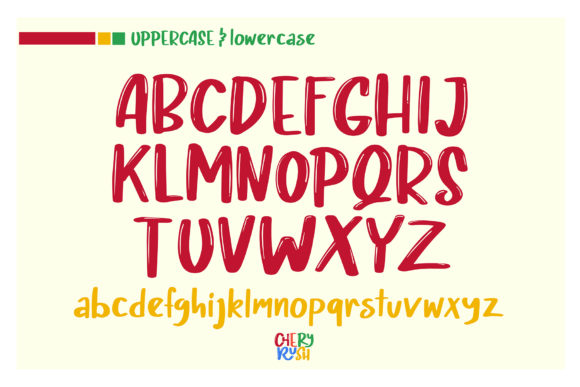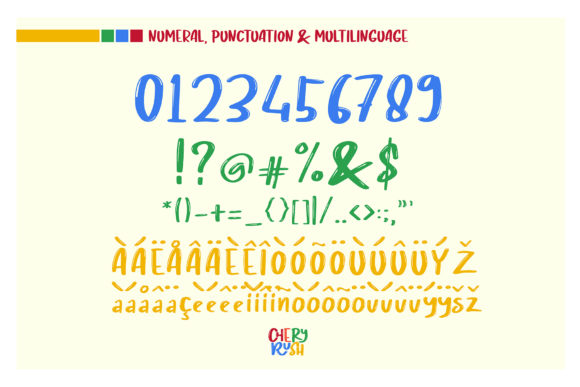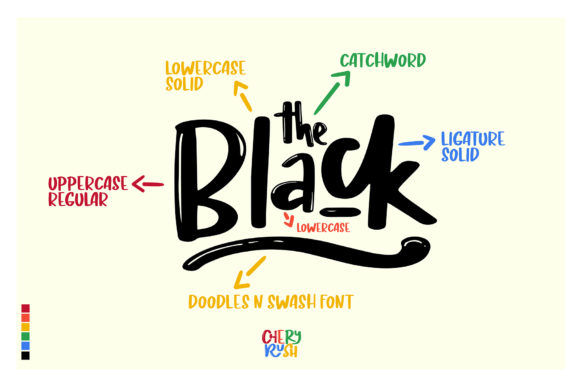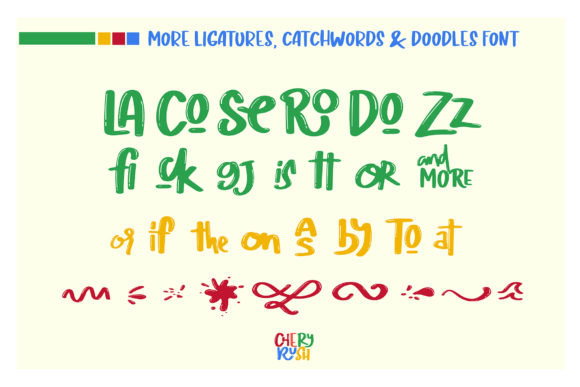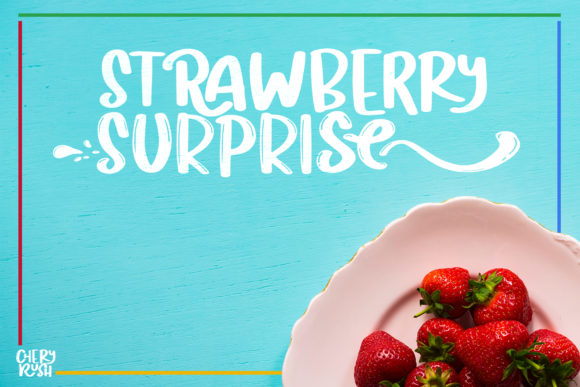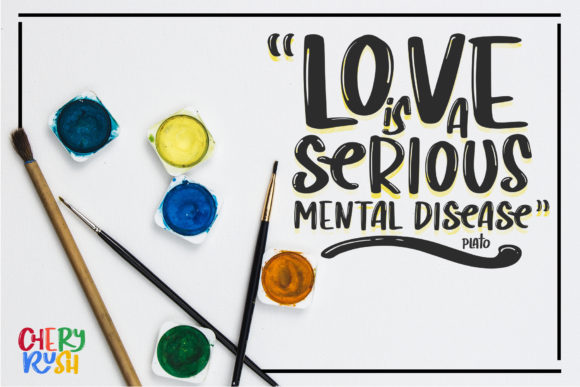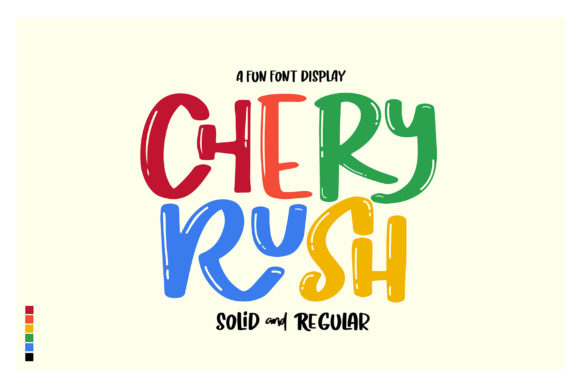
Introducing Chery Rush Font: The Ultimate Playful Script Font
Are you tired of using the same old fonts for your designs? Look no further! The Chery Rush font is here to add a touch of fun and playfulness to your creations. This adorable script font is perfect for designers and crafters who want to add a personal touch to their work. In this article, we’ll dive into the world of Chery Rush font and explore its features, benefits, and uses.
The Chery Rush Font: A Fun and Cute Script Font
The Chery Rush font is a mixed case font that exudes a sense of playfulness and whimsy. Its unique and irregular shape makes it stand out from other fonts, giving your designs a fresh and youthful look. Whether you’re creating a logo, a poster, or a social media graphic, this font is sure to add a touch of personality to your work.
Designing Possibilities with Chery Rush Font
One of the best things about the Chery Rush font is its versatility. With a wide range of designing possibilities, you can use this font to create a variety of designs, from playful and casual to elegant and sophisticated. The font’s mixed case feature allows you to experiment with different letter combinations, making it perfect for creating unique and eye-catching designs.
Perfect for Playful Designs
The Chery Rush font is specifically designed for creating playful designs. Its fun and cute appearance makes it ideal for projects that require a lighthearted and humorous touch. Whether you’re designing a children’s book, a party invitation, or a social media graphic, this font is sure to bring a smile to your audience’s face.
Benefits of Using Chery Rush Font
So, what are the benefits of using the Chery Rush font? Here are a few:
- Unique and eye-catching: The Chery Rush font is unlike any other font out there. Its unique shape and irregularities make it stand out from the crowd, ensuring your designs get noticed.
- Playful and fun: This font is perfect for creating playful and fun designs that appeal to a younger audience.
- Versatile: The Chery Rush font can be used for a wide range of design projects, from logos and posters to social media graphics and more.
- Easy to read: Despite its playful appearance, the Chery Rush font is easy to read, making it perfect for body text and headlines.
How to Use Chery Rush Font
Using the Chery Rush font is easy! Here are a few tips to get you started:
- Pair it with a bold font: Pair the Chery Rush font with a bold font to create a striking contrast and add visual interest to your design.
- Experiment with colors: The Chery Rush font looks great in a variety of colors. Experiment with different hues and shades to find the perfect combination for your design.
- Use it for headlines: The Chery Rush font is perfect for headlines and titles. Use it to add a touch of personality to your design and draw attention to your message.
In conclusion, the Chery Rush font is a fun and cute script font that’s perfect for designers and crafters who want to add a touch of playfulness to their work. With its unique and irregular shape, mixed case feature, and versatility, this font is sure to become a favorite in your design arsenal. So why not give it a try and see how it can elevate your designs?